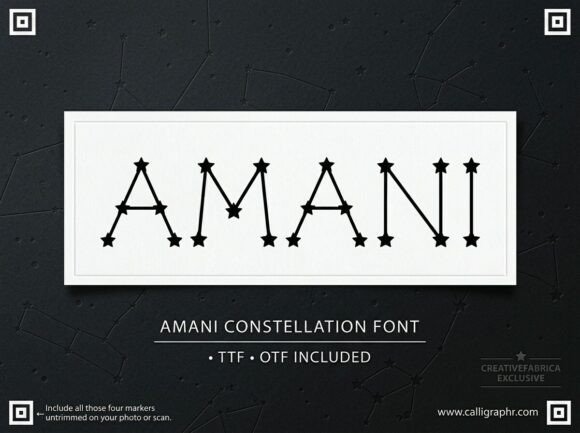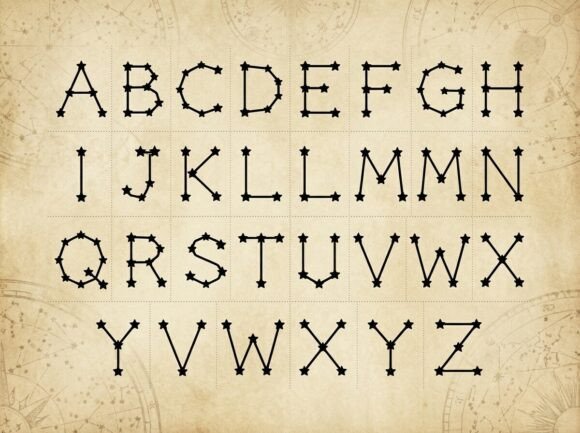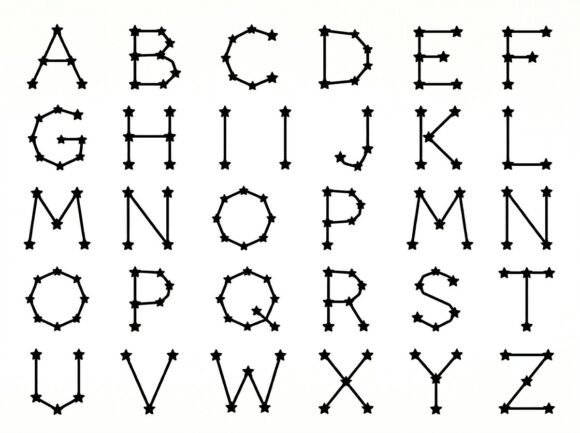
Introducing Amani Font: A Stunning Decorative Display Font
Are you tired of using the same old fonts for your creative projects? Look no further than Amani Font, a unique and artistic display font that’s sure to turn heads. Designed to be the center of attention, Amani Font features a strong visual personality and versatile design that’s perfect for creators who want to break away from the ordinary.
What Makes Amani Font Special?
Amani Font is a decorative display font that’s specifically designed for high-impact headlines, logos, and decorative initials. With its unique artistic elements and strong visual personality, this font is perfect for creators who want to add a touch of elegance and sophistication to their work.
One of the standout features of Amani Font is its versatility. Whether you’re looking to create bold headlines, artistic logos, or creative packaging, this font is up to the task. And with its professional and polished finish, you can be sure that your work will look great in any context.
Before purchasing Amani Font, it’s essential to note that this font is an ALL-CAPS (Uppercase Only) display typeface. This means that it does not include lowercase letters, making it specifically designed for high-impact headlines, logos, and decorative initials where every letter is a work of art.
While this may seem limiting, the ALL-CAPS design of Amani Font is actually a deliberate choice that allows for maximum impact and visual appeal. By focusing on uppercase letters, the font’s designer has been able to create a truly unique and eye-catching design that’s perfect for making a statement.
Uses for Amani Font
So, what can you use Amani Font for? The possibilities are endless, but here are a few ideas to get you started:
- Headlines and Titles: Amani Font is perfect for creating bold and eye-catching headlines and titles for articles, blog posts, and other written content.
- Logos and Branding: With its unique artistic elements and strong visual personality, Amani Font is an excellent choice for creating logos and branding materials that stand out from the crowd.
- Packaging and Label Design: Amani Font is also well-suited for creative packaging and label design, adding a touch of elegance and sophistication to any product.
Why Choose Amani Font?
With so many fonts available, why choose Amani Font? Here are just a few reasons why this font stands out from the rest:
- Unique Design: Amani Font features a truly unique design that’s sure to turn heads and make a lasting impression.
- Versatility: Whether you’re looking to create headlines, logos, or packaging, Amani Font is versatile enough to handle any design task.
- Professional Finish: With its polished and professional finish, Amani Font is perfect for creating high-quality designs that look great in any context.
In conclusion, Amani Font is a stunning decorative display font that’s perfect for creators who want to break away from the ordinary. With its unique artistic elements, strong visual personality, and versatile design, this font is ideal for a wide range of design tasks, from bold headlines and artistic logos to creative packaging and label design.